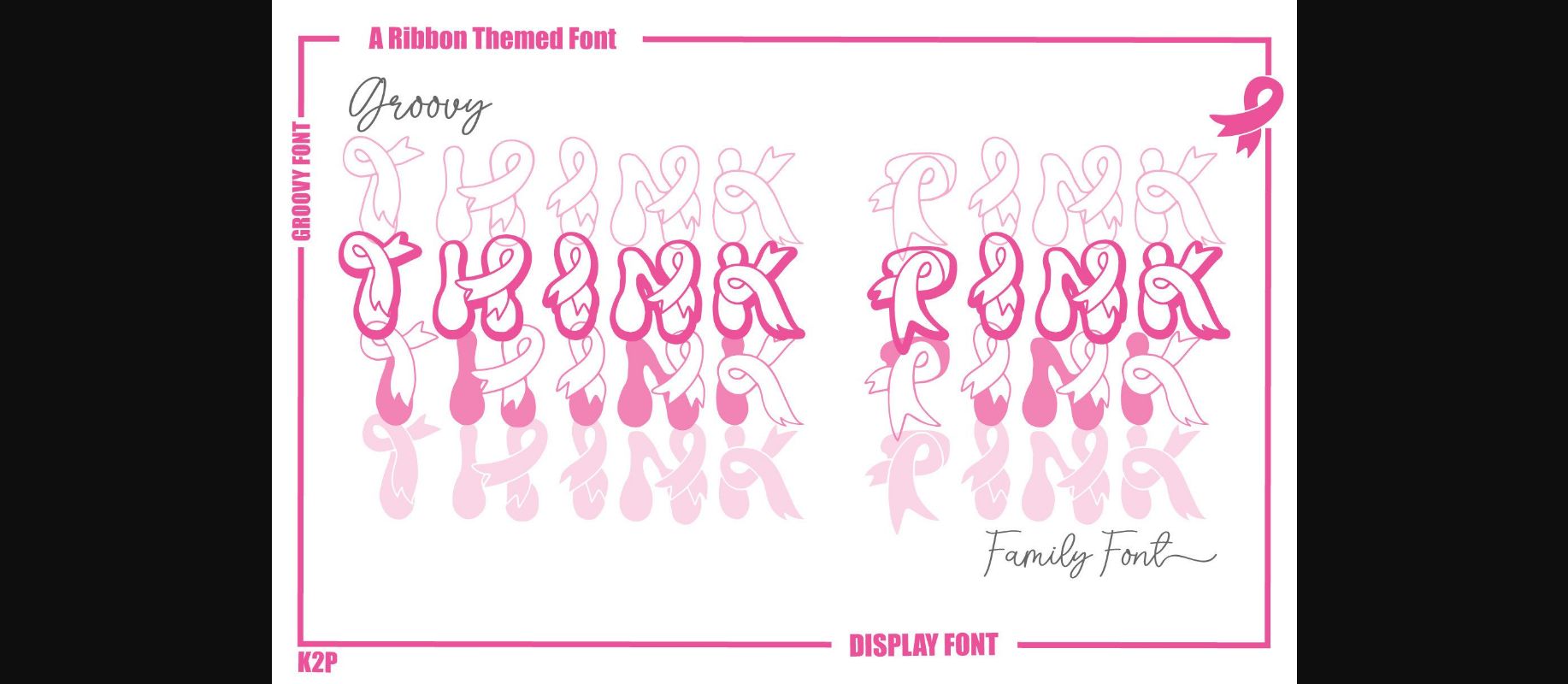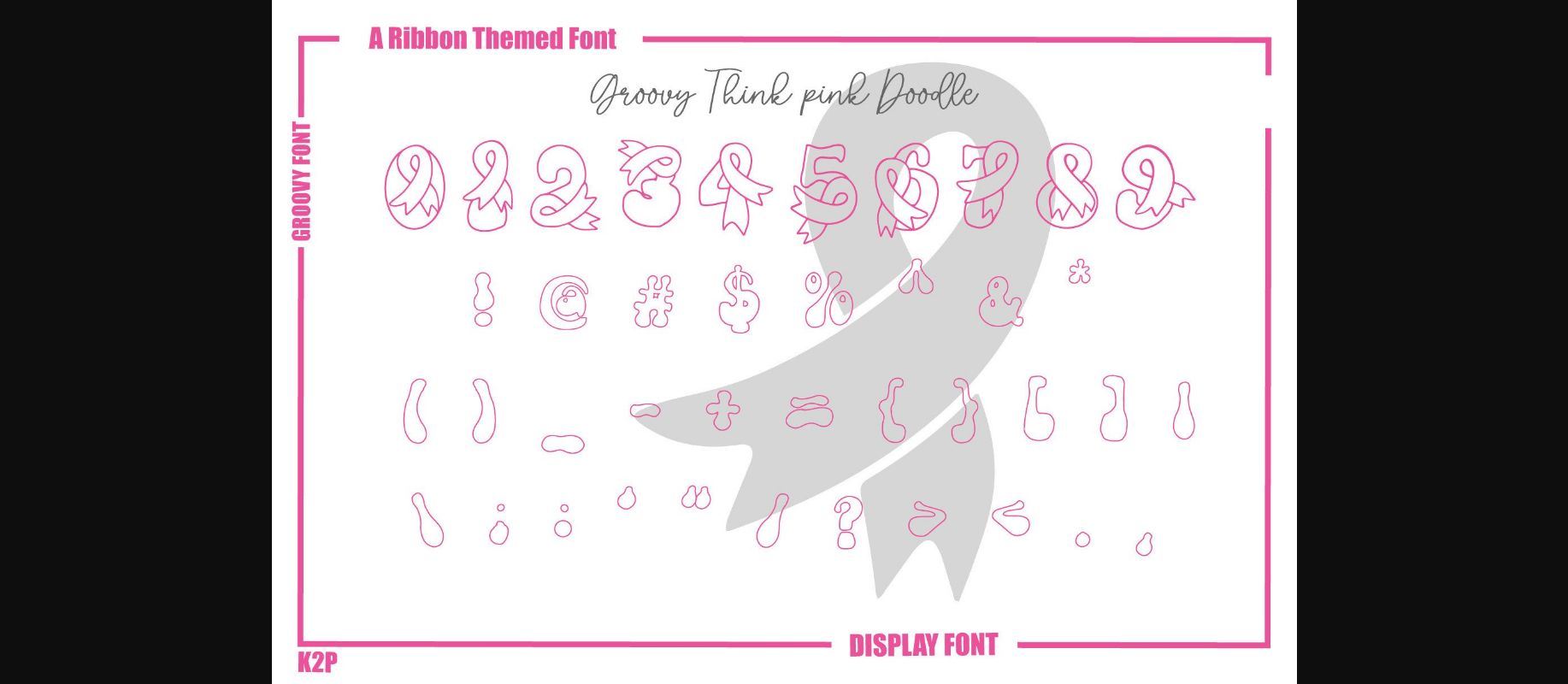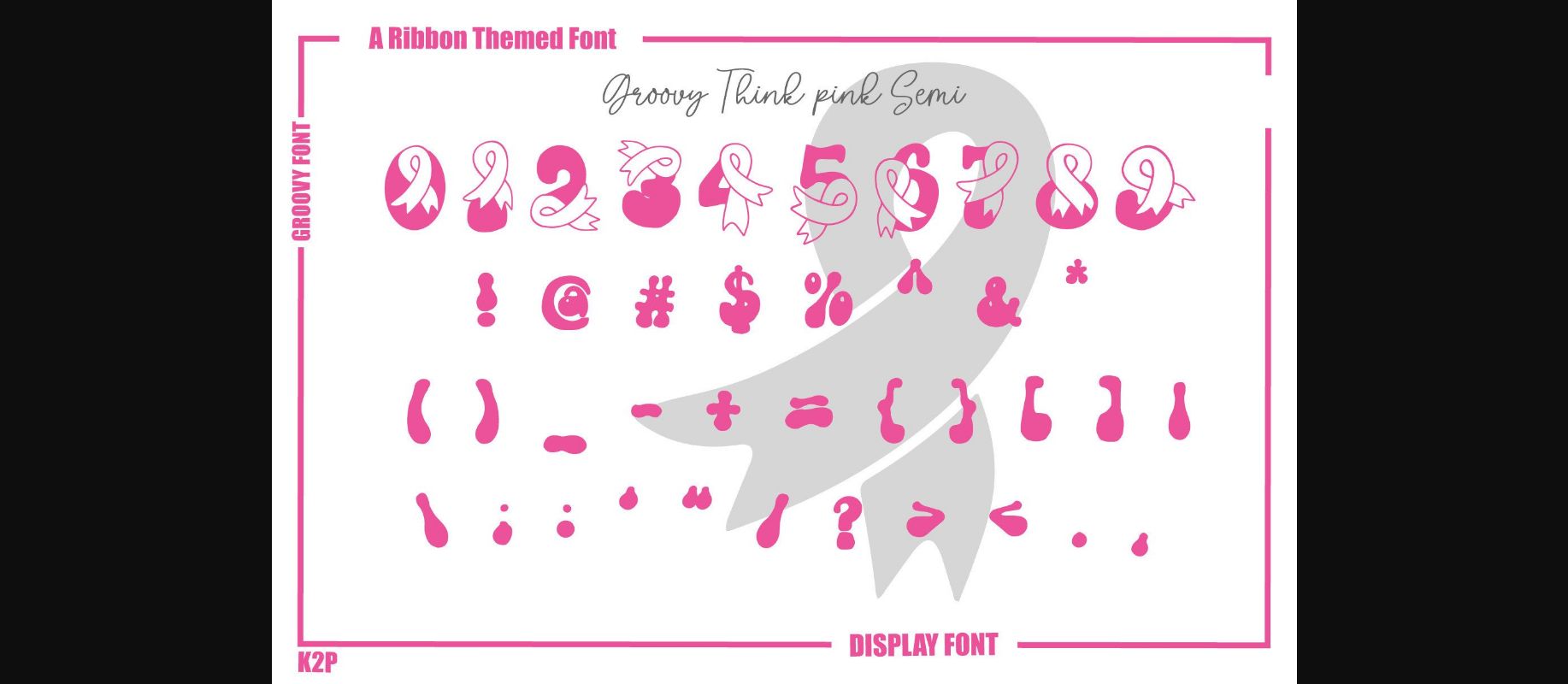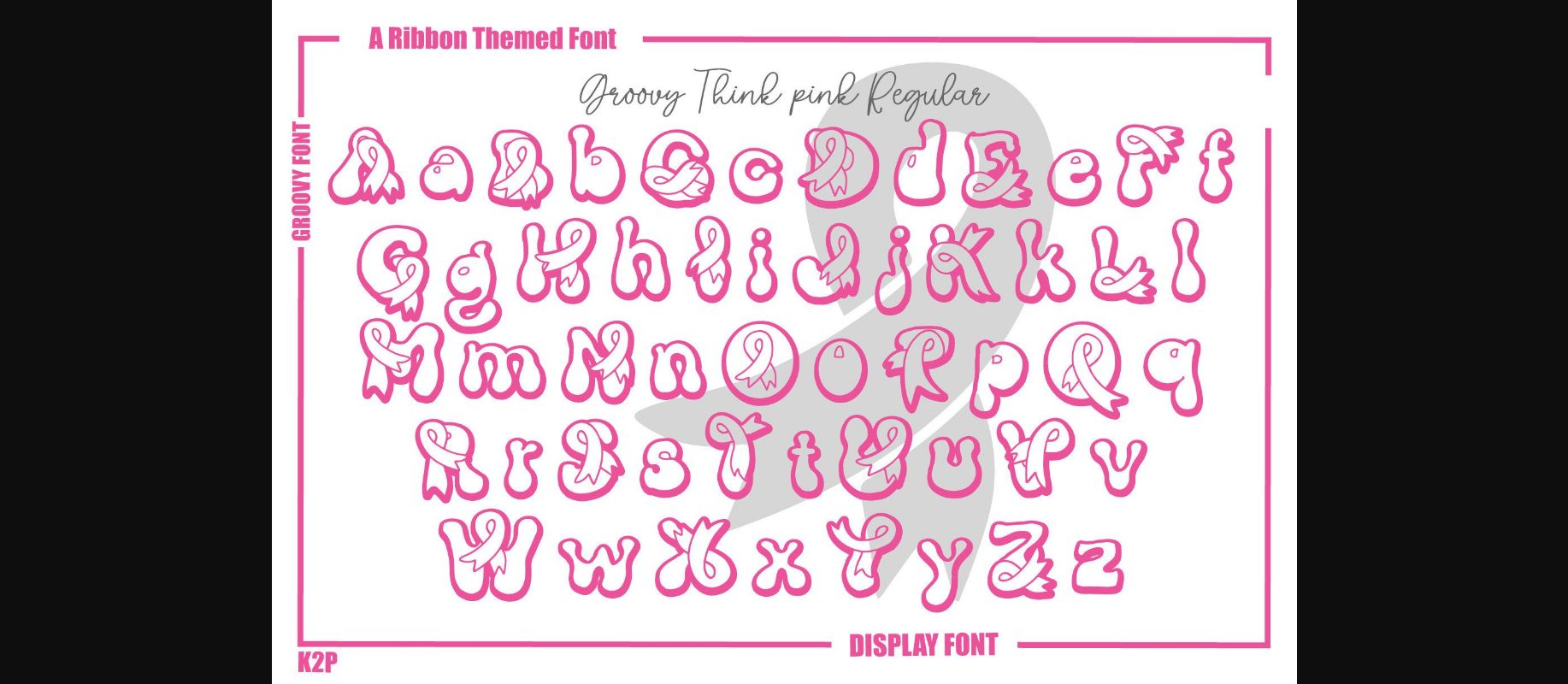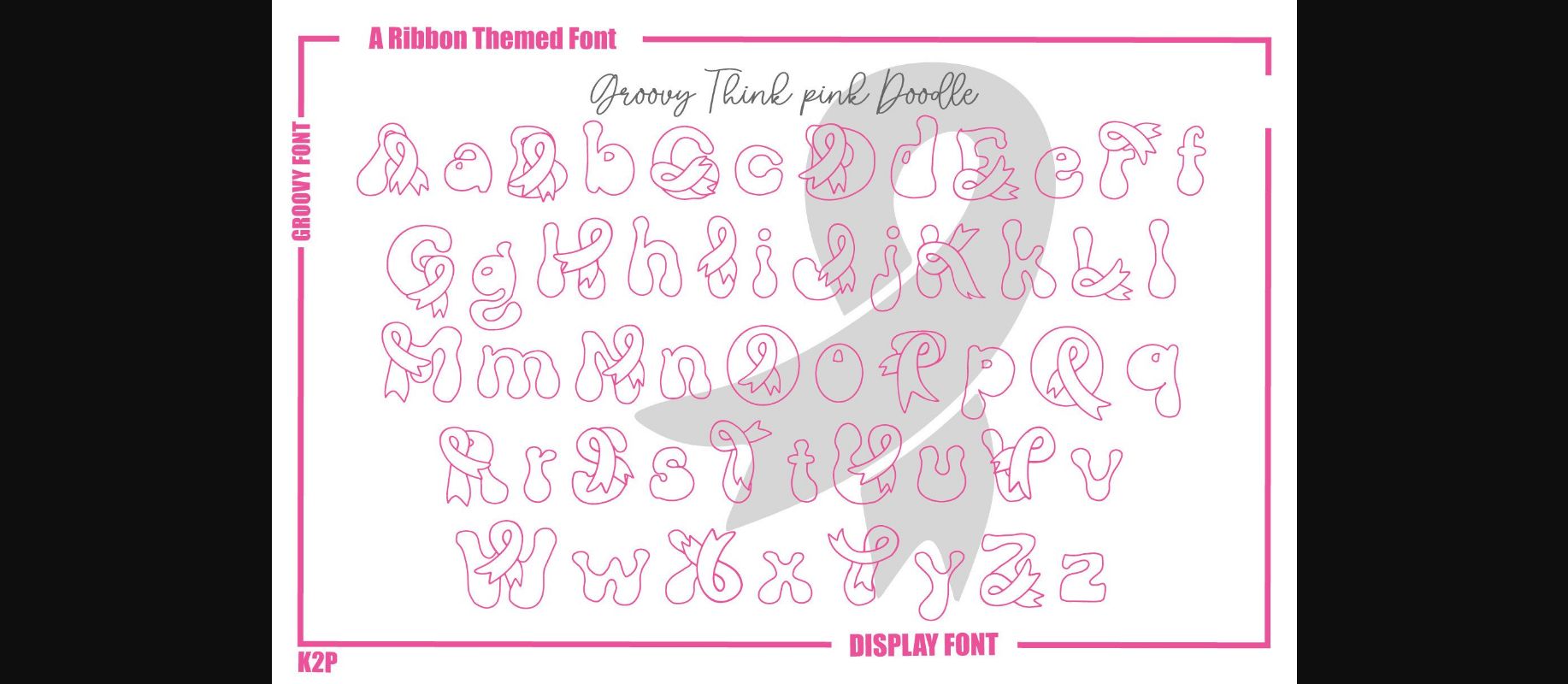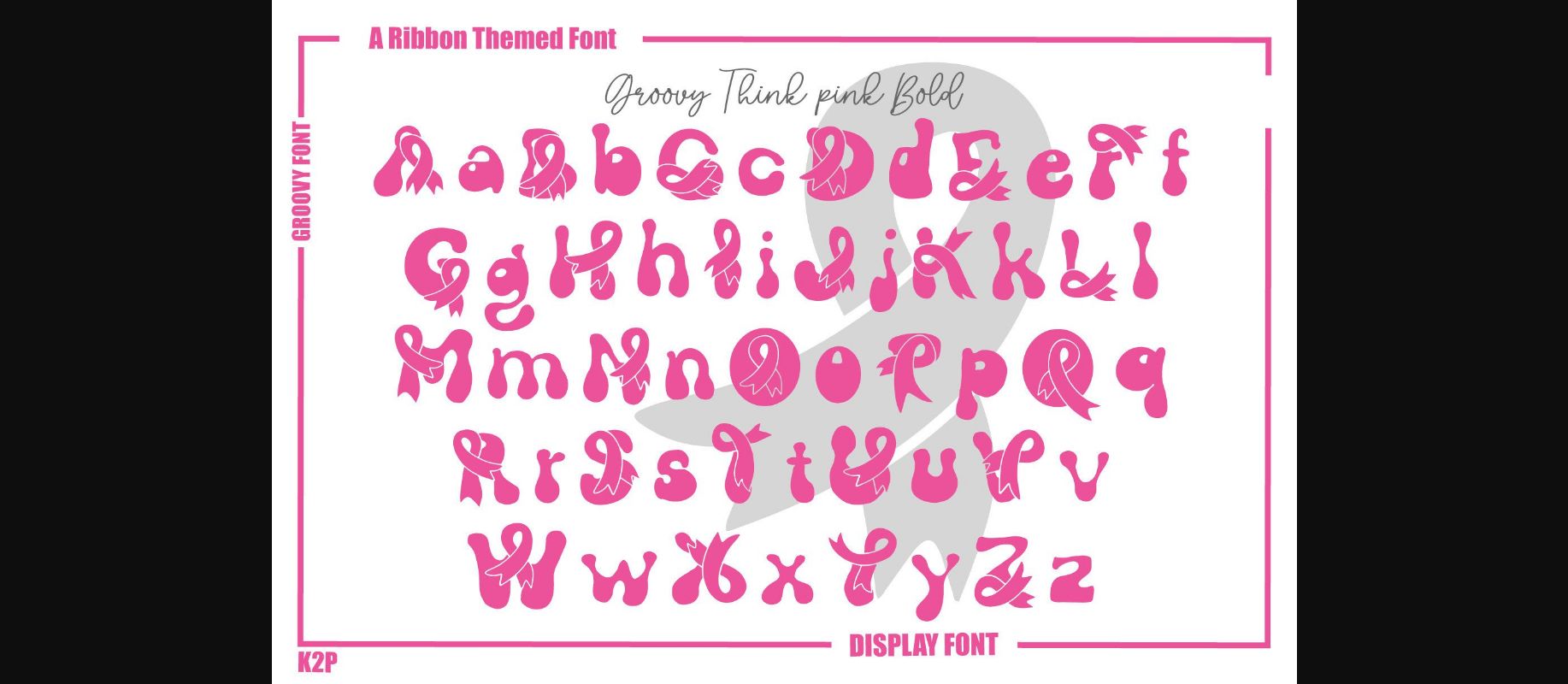
Groovy Think Pink Font
About Groovy Think Pink Font
Groovy Think Pink is a thick-lettered and unique decorative font family. It is perfectly suitable for any breast cancer awareness project.